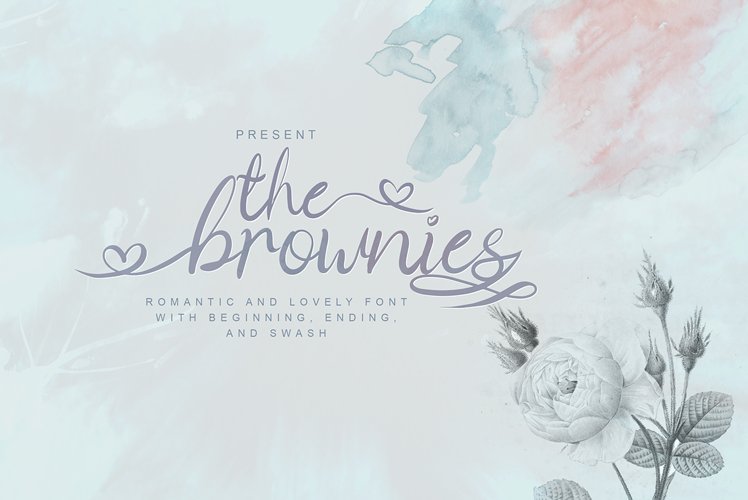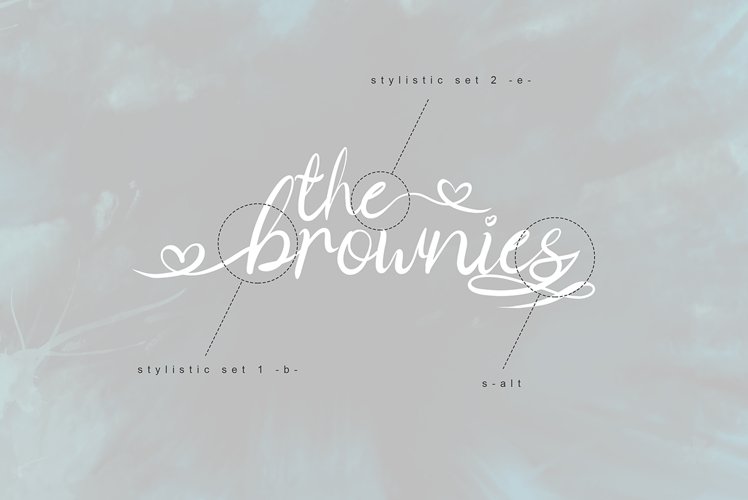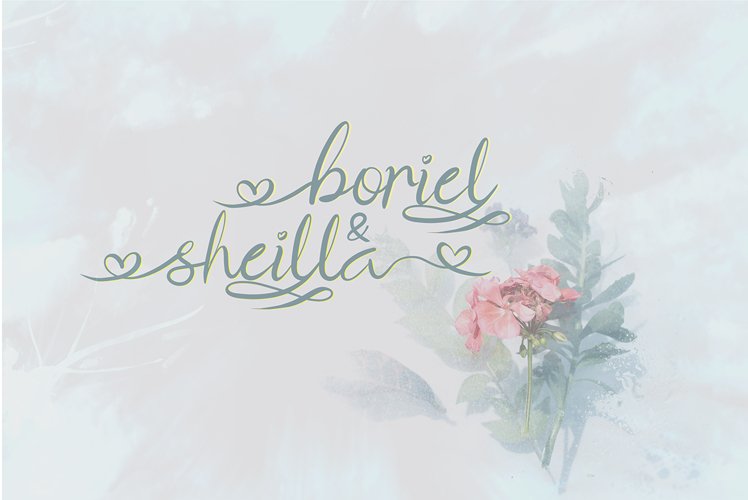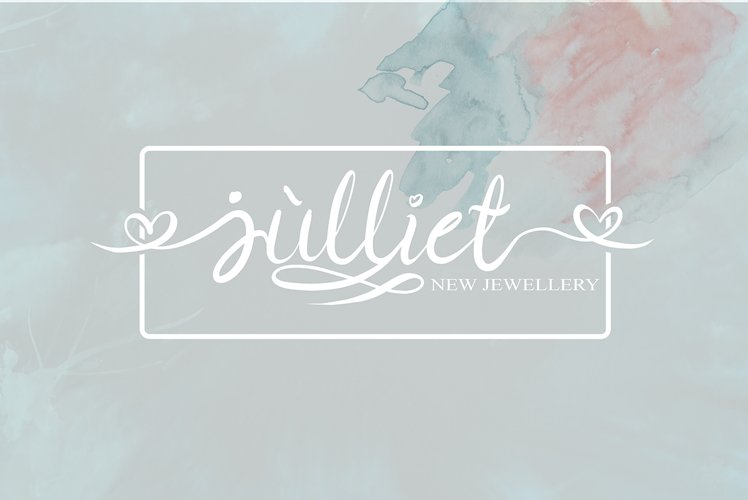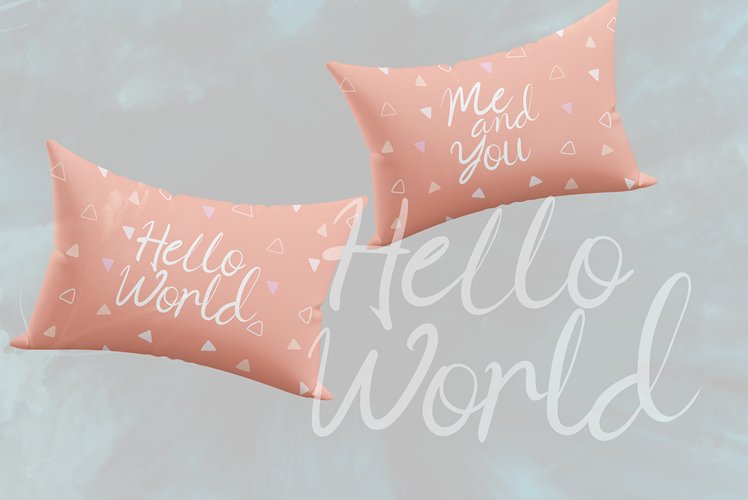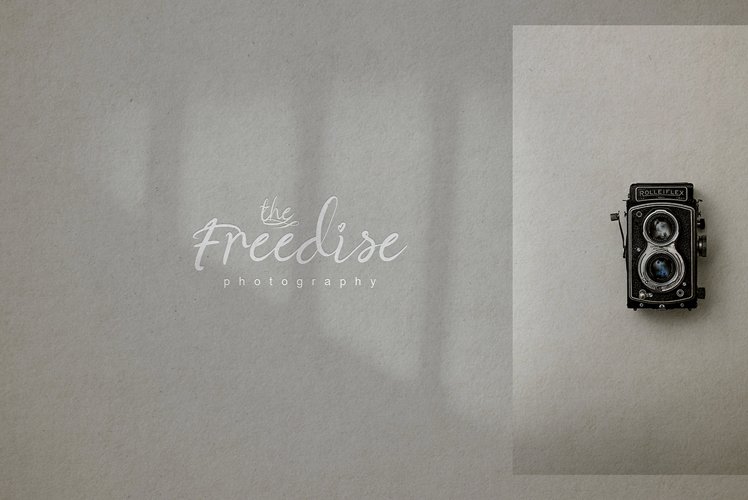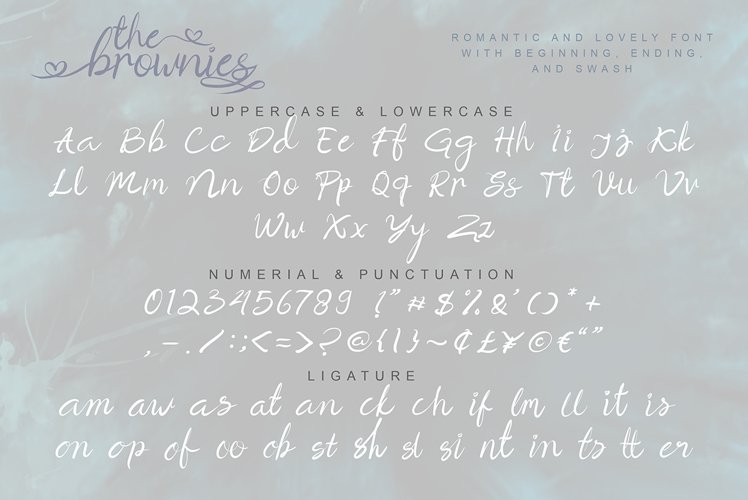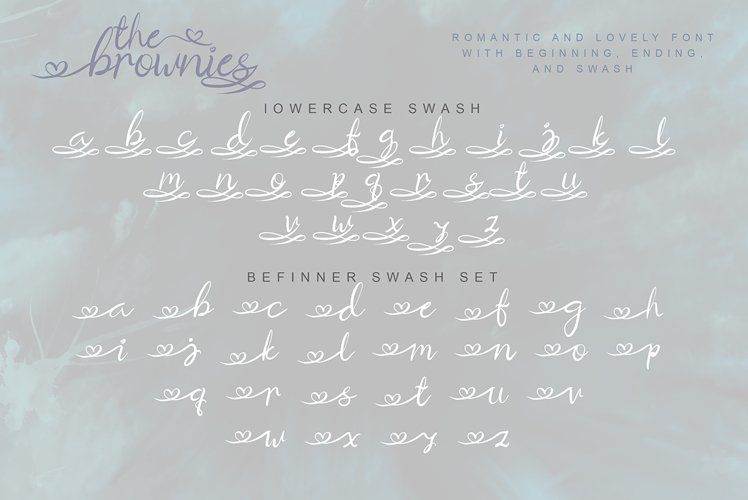
the brownies | romantic love font
The Brownies, is a Romantic lovely font with irregular stroke style. trendy and feminine style. It looks lovely for wedding, invitation, thank you cards, quotes, business card, and more your creative idea.
• Full Upper + Lowercase Glyphs
• Number + Punctuation
• Ligatures
• Alternates Glyphs, Beginning, Ending, and Swash
The Brownies | Romantic Love Font